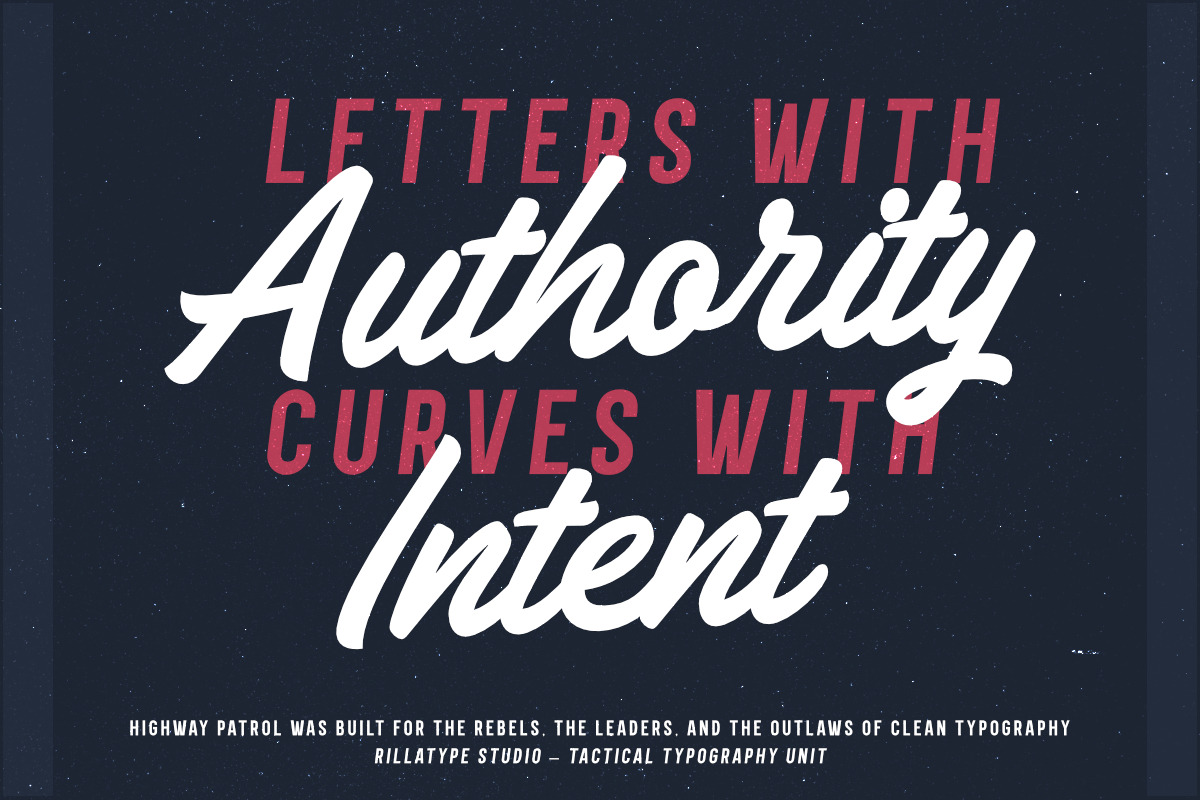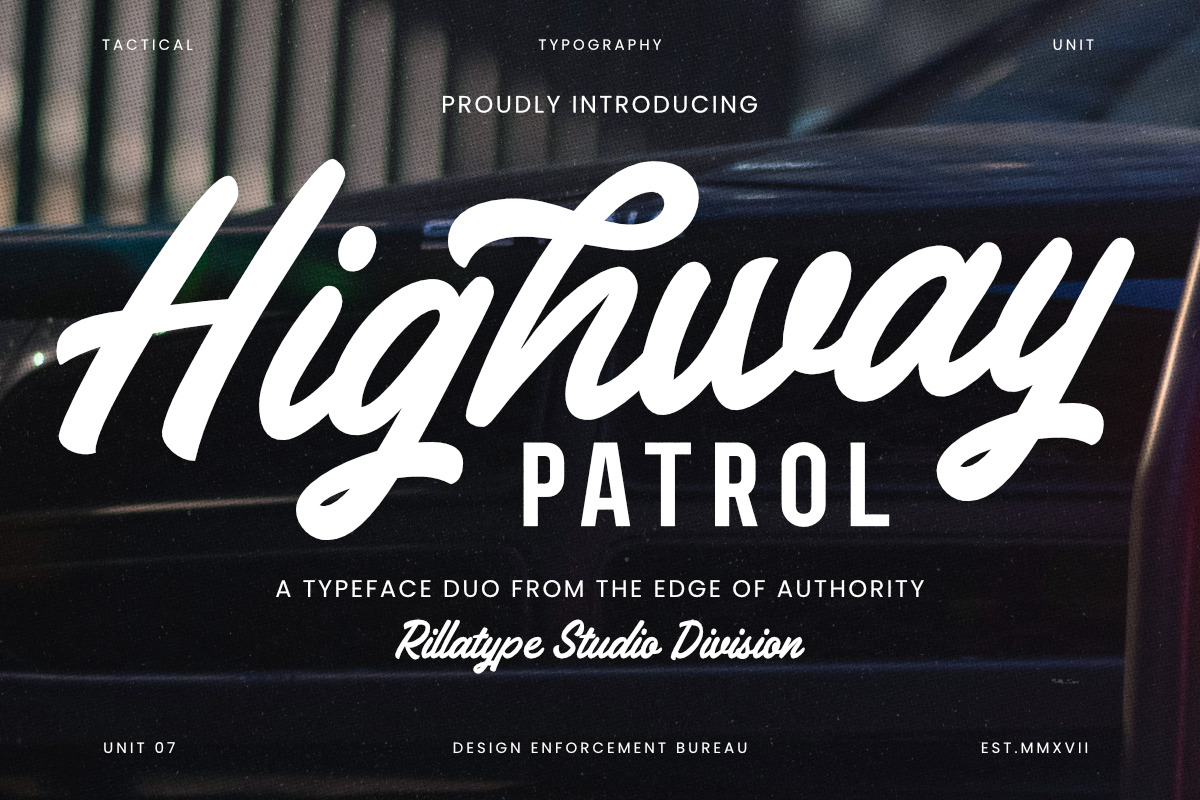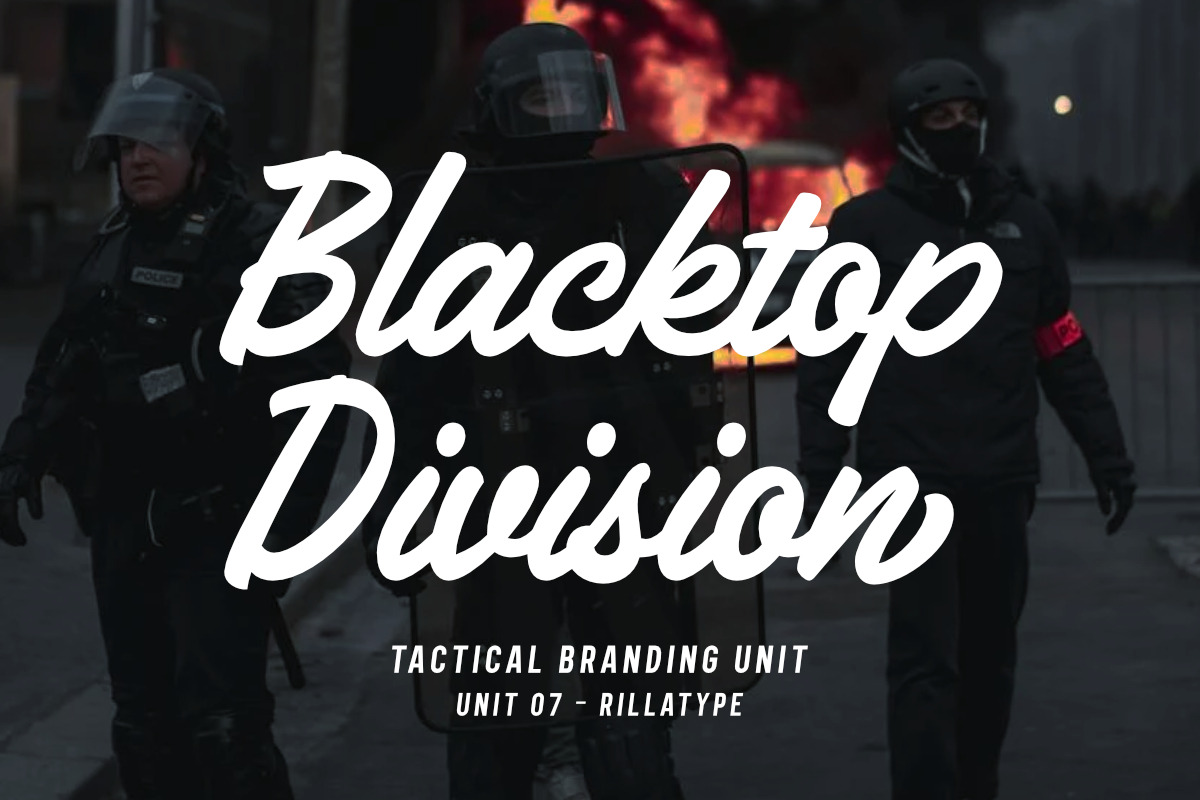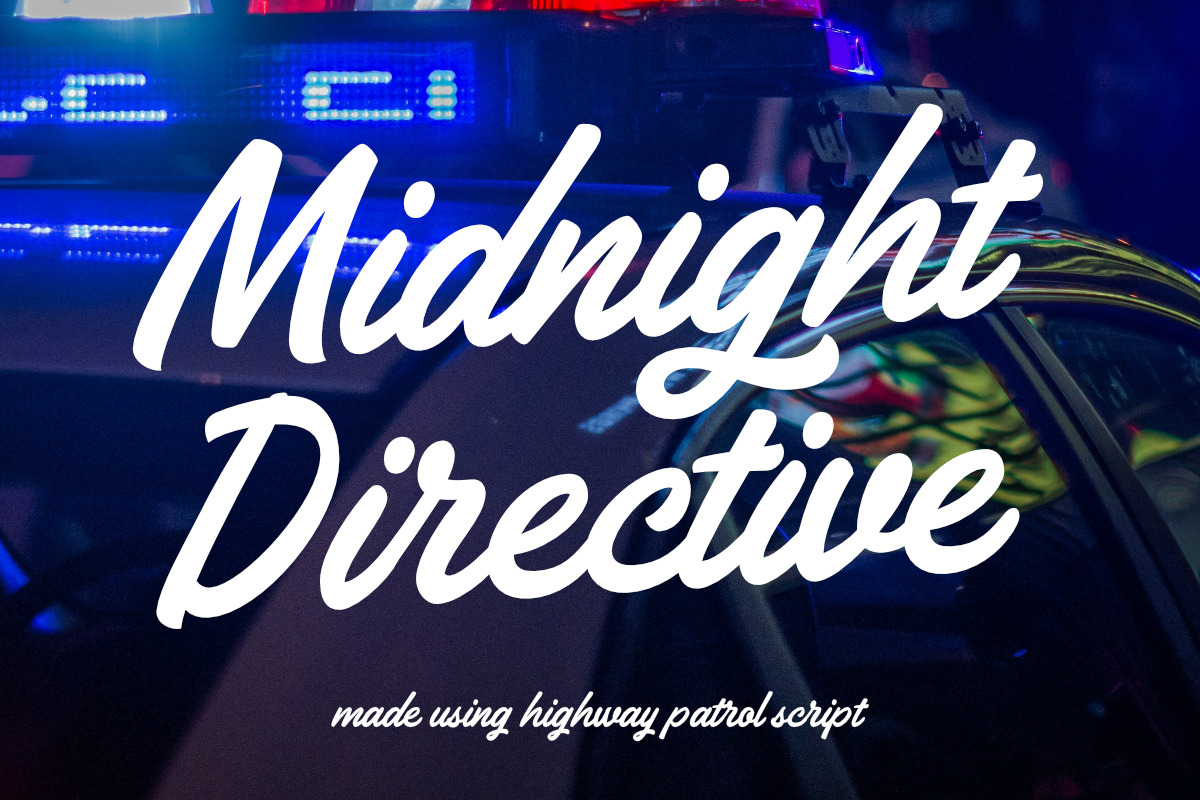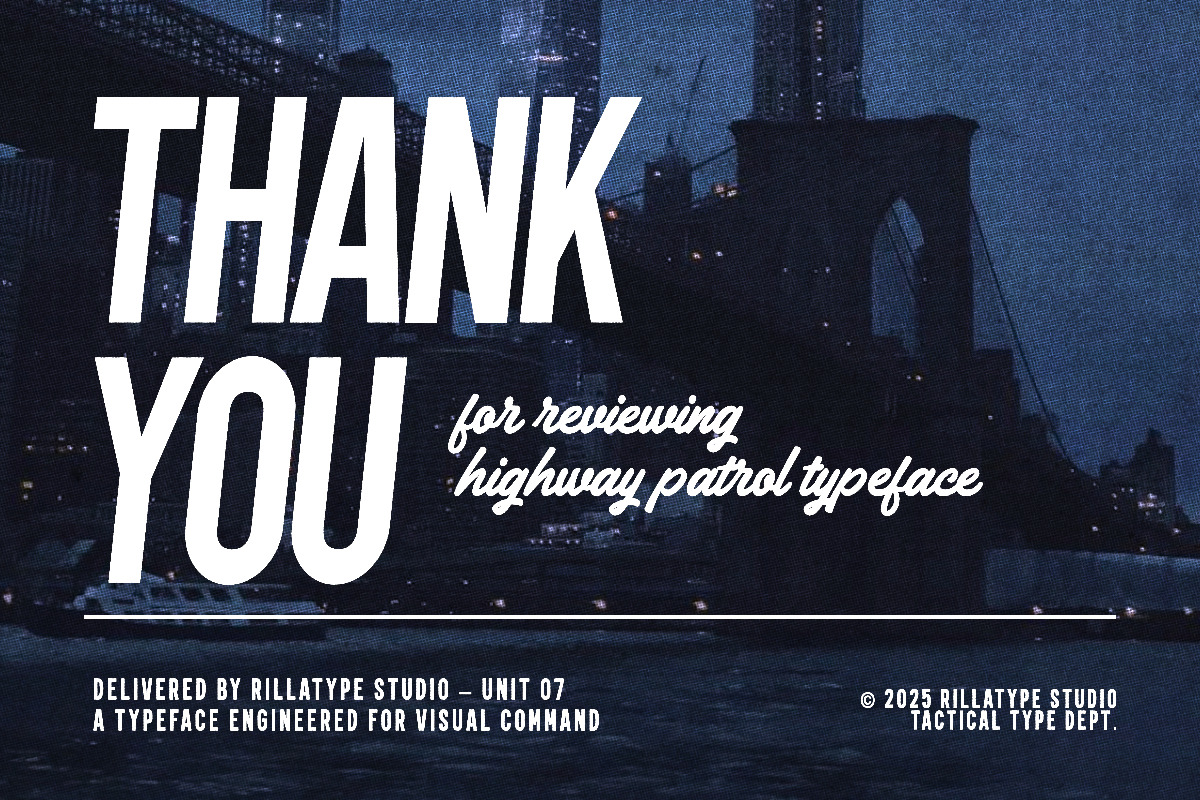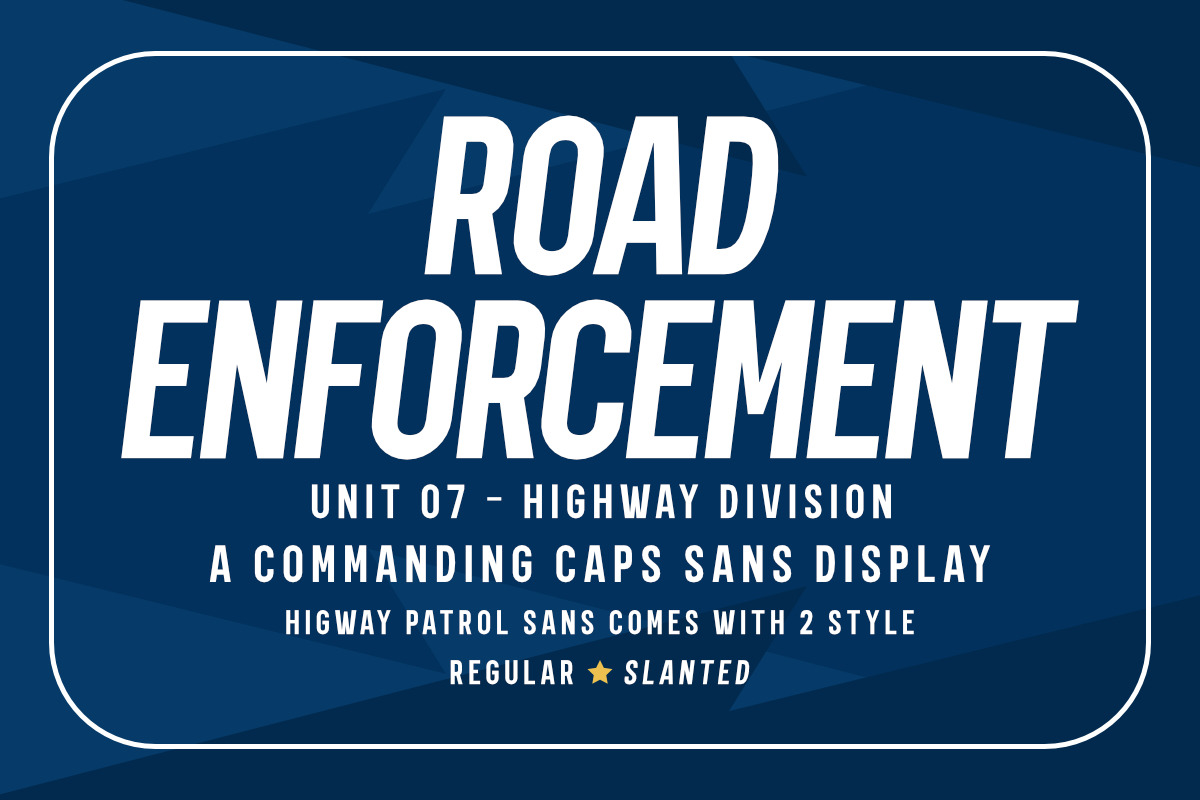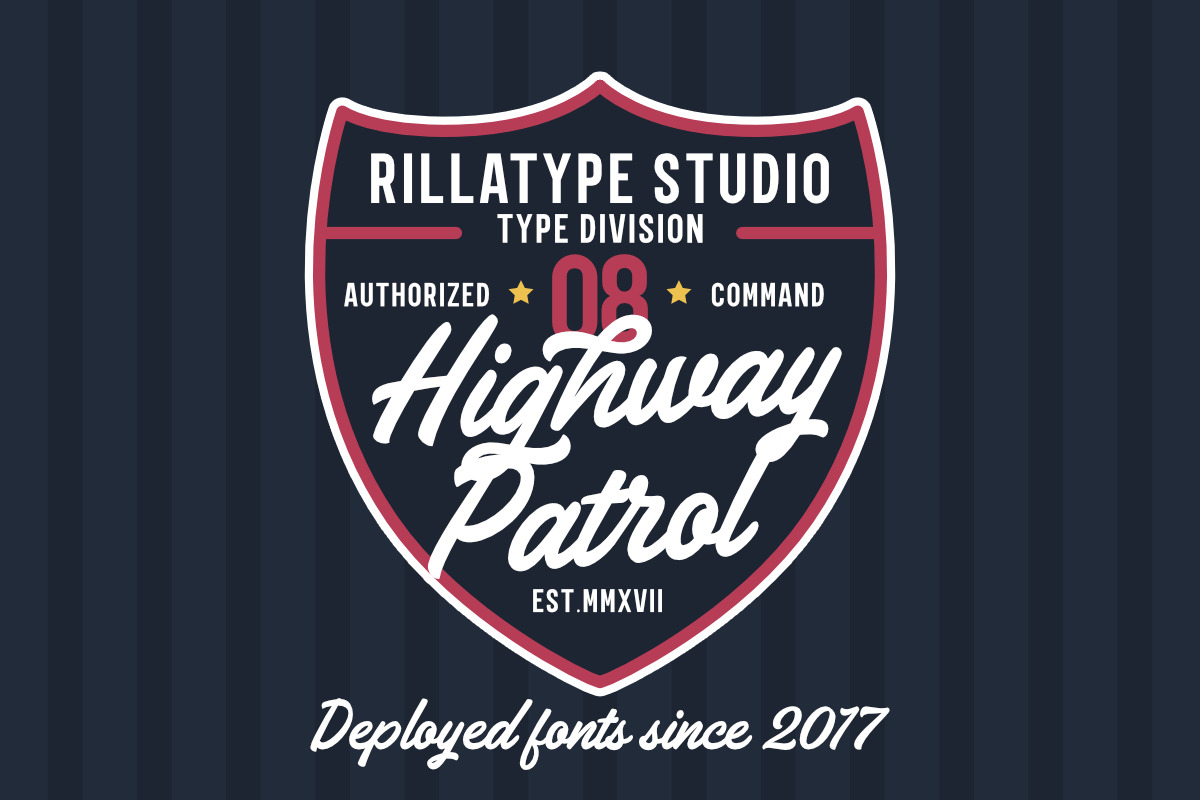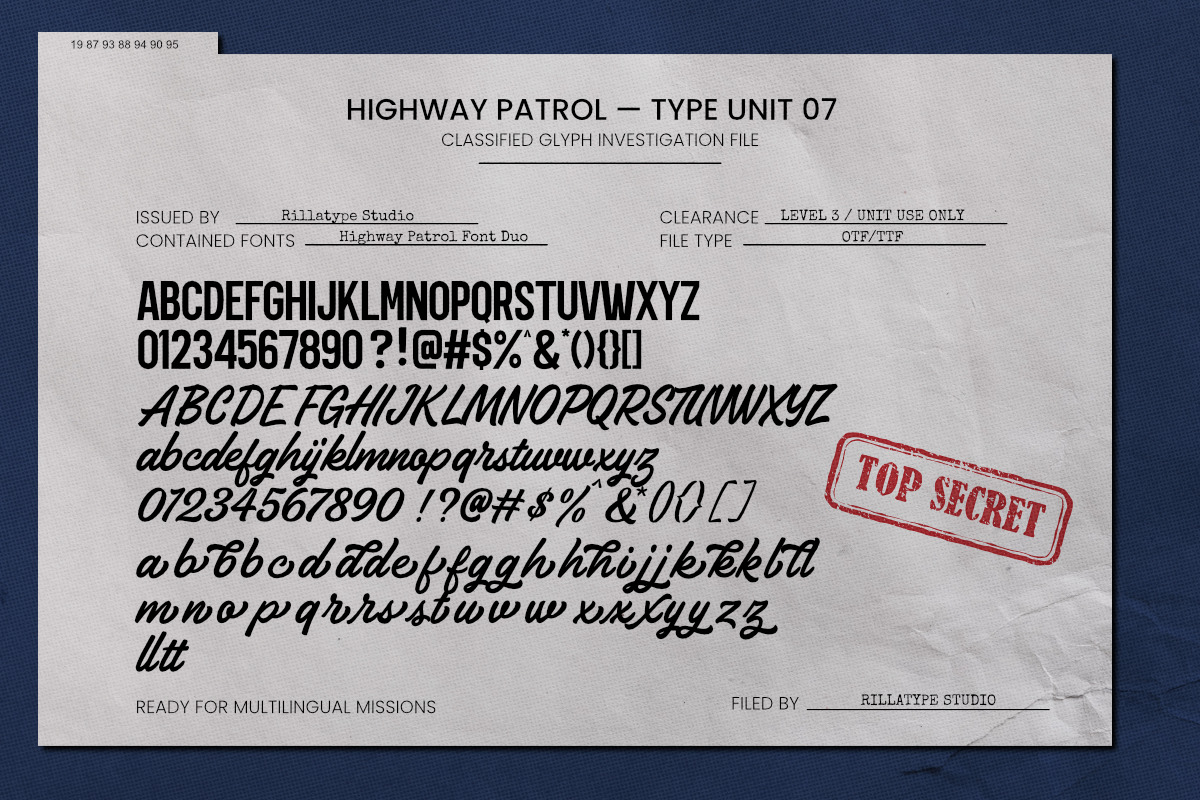
Highway Patrol - Font Duo
Highway Patrol is a retro-inspired typeface duo featuring a bold, commanding all-caps sans serif and a dynamic script with vintage flair. Built for branding with character, this duo draws from the visual culture of 1970s highway patrol units, police signage, and American tactical iconography.
Designed with attitude and clarity in mind, Highway Patrol is perfect for bold logos, signage, apparel branding, packaging, and editorial graphics. The script font brings a smooth, confident signature style — ideal for wordmarks, badge-style layouts, and identity systems. The all-caps sans works as a firm supporting player, evoking authority, structure, and control.
Every glyph is handcrafted to evoke the visual rhythm of law enforcement aesthetics — clean, direct, and unmistakably vintage.
- All uppercase characters
- Numerals & punctuation
- Multilingual support (Latin-based languages)